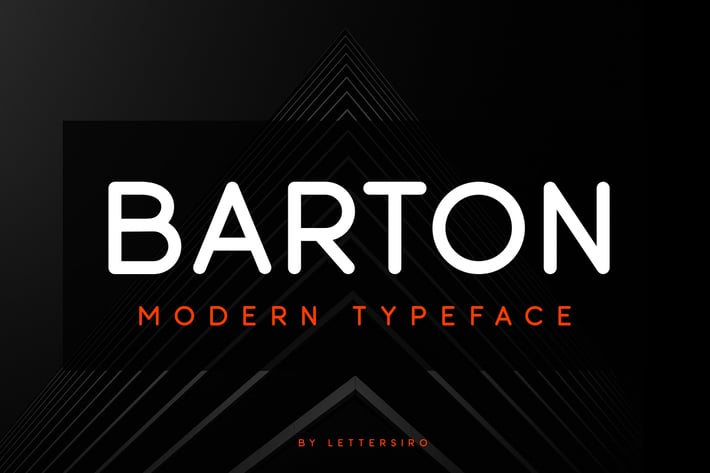
Barton Font
Barton is elegant rounded font. Perfect for magazine, cover, poster, branding, or advertisement. Barton is modern and strong. Perfect choose for your projects
Multilingual Support AÀÁÂÃÄÅCÇDÐEÈÉÊËIÌÍÎÏNÑOØÒÓÔÕÖUÙÜÚÛWYÝŸÆßÞþ